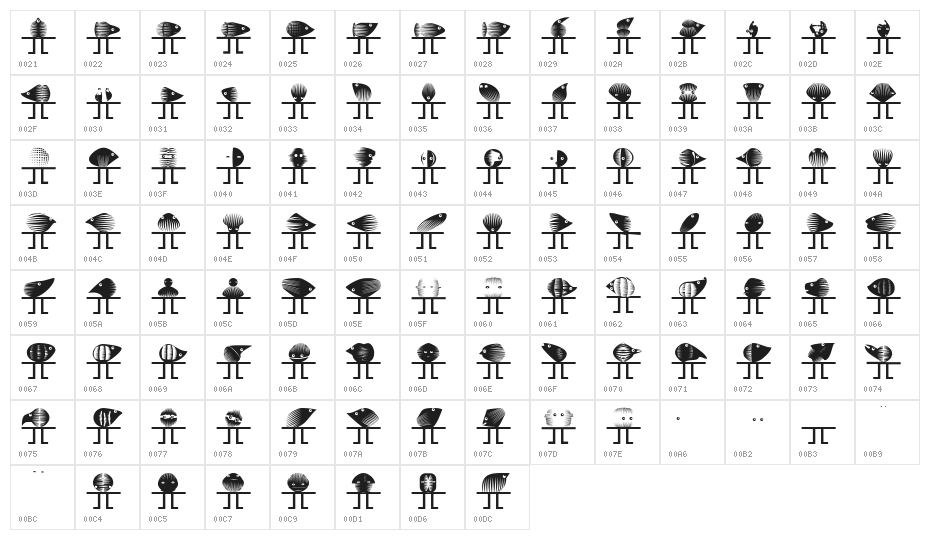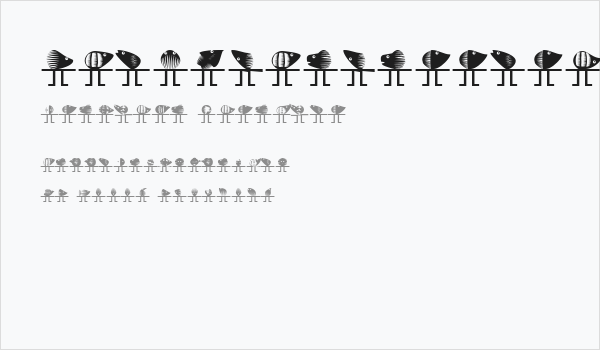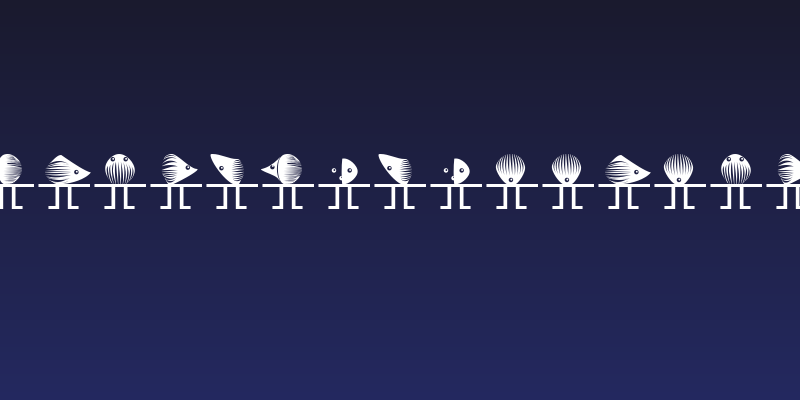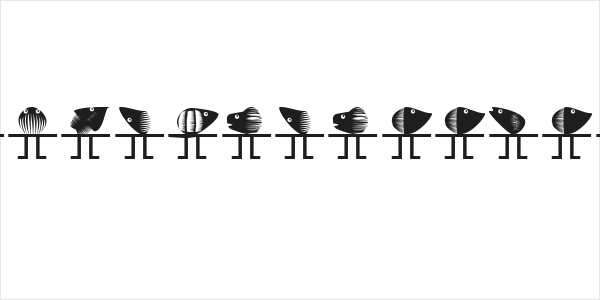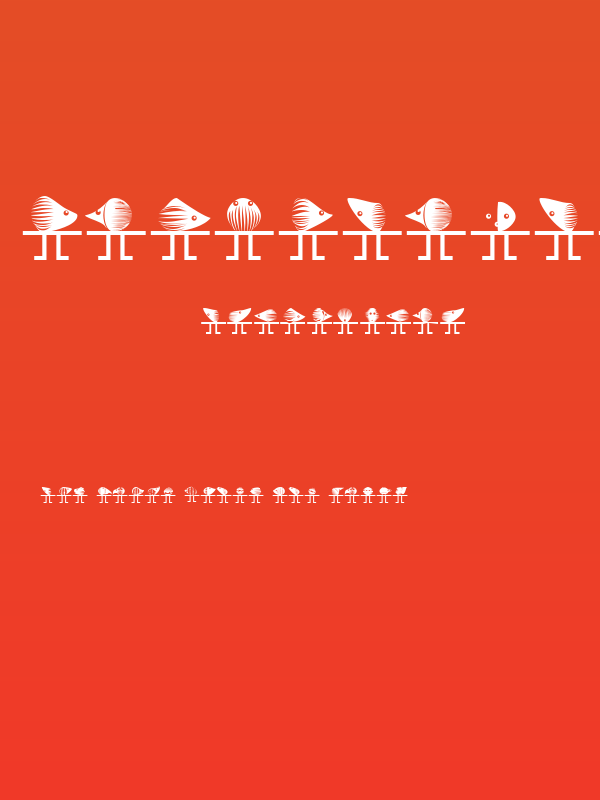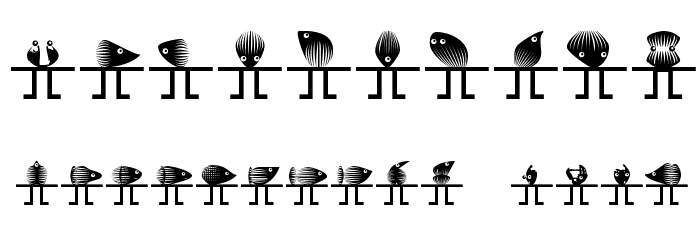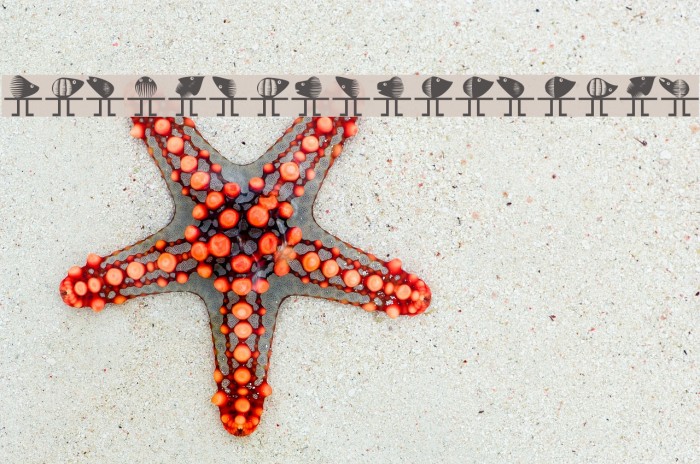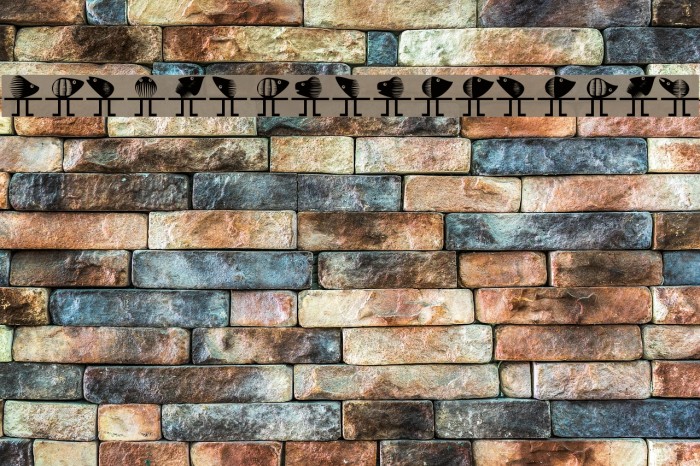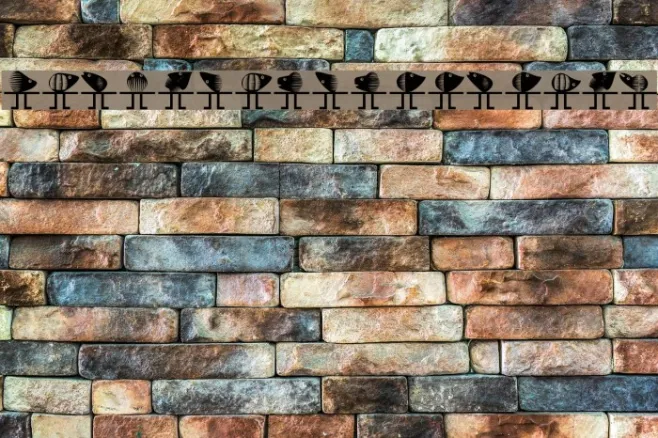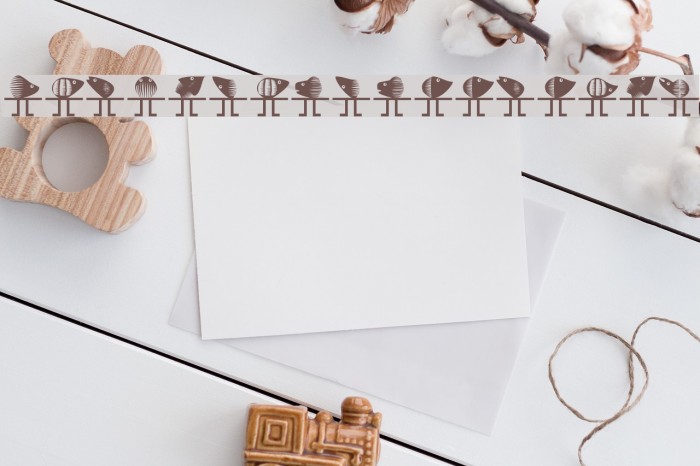
WhoIsTheTerrorist Font
WhoIsTheTerrorist Description
A highly decorative and whimsical display font where each character is represented by a stylized bird illustration, featuring bold, rounded shapes, playful details, and strong contrast between thick and thin lines. The characters are abstract but maintain a consistent visual language, with each 'bird' perched on two straight legs, creating a unique and cohesive alphabet.
| Overall Style | Decorative, Whimsical, Playful |
| Use Case | Logos, Headlines, Posters, Artistic projects |
| Proposed Projects | Children's books, posters, branding for playful or creative businesses, event invitations, art projects. |